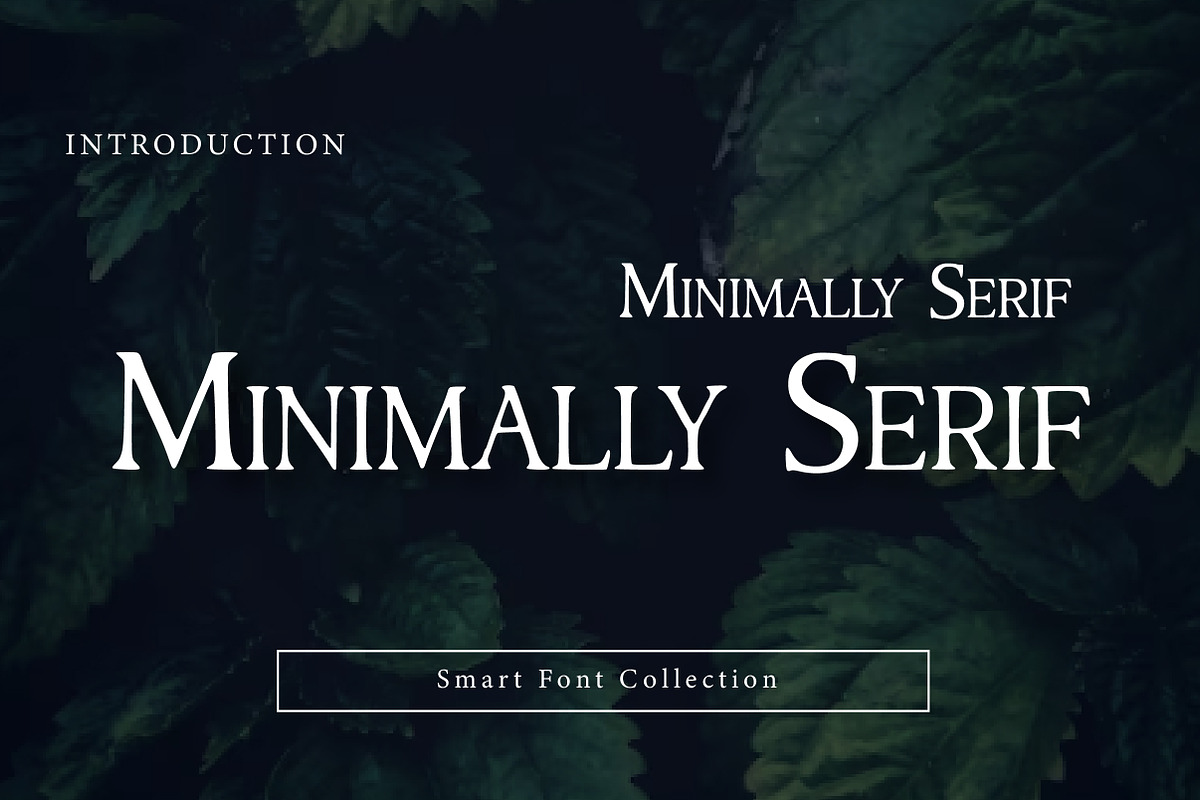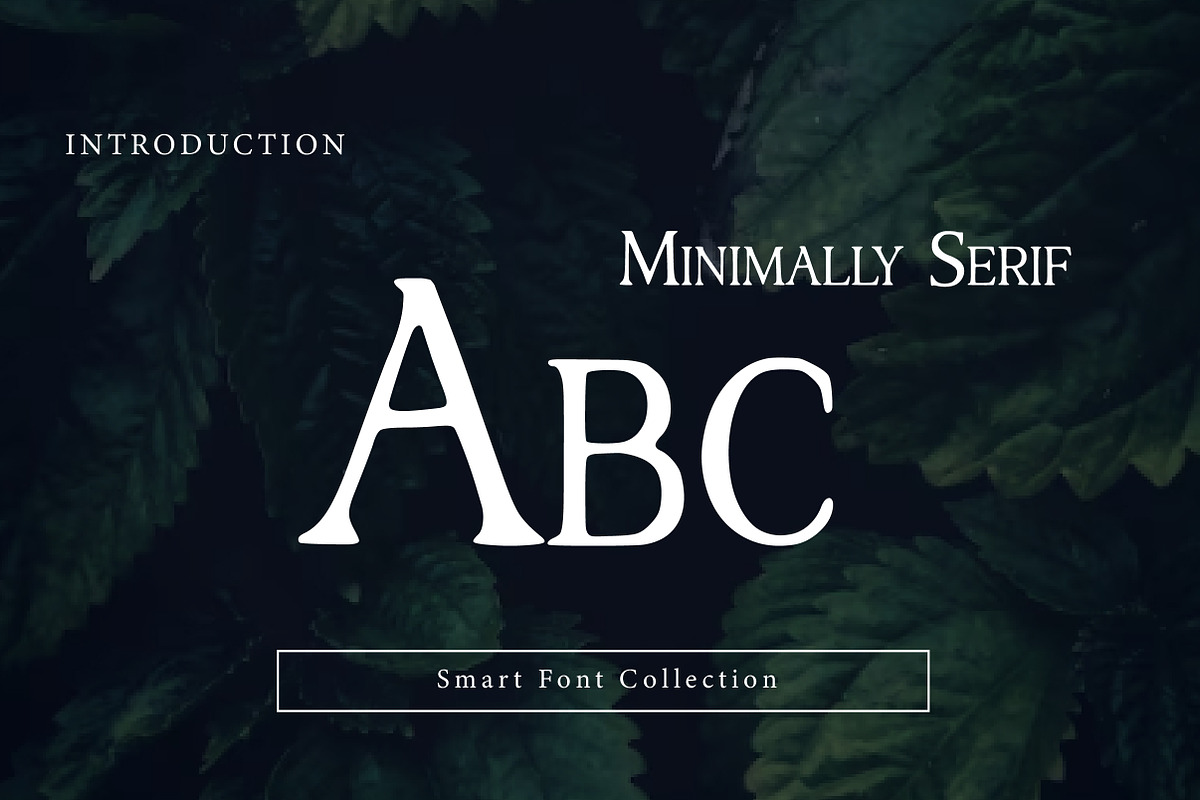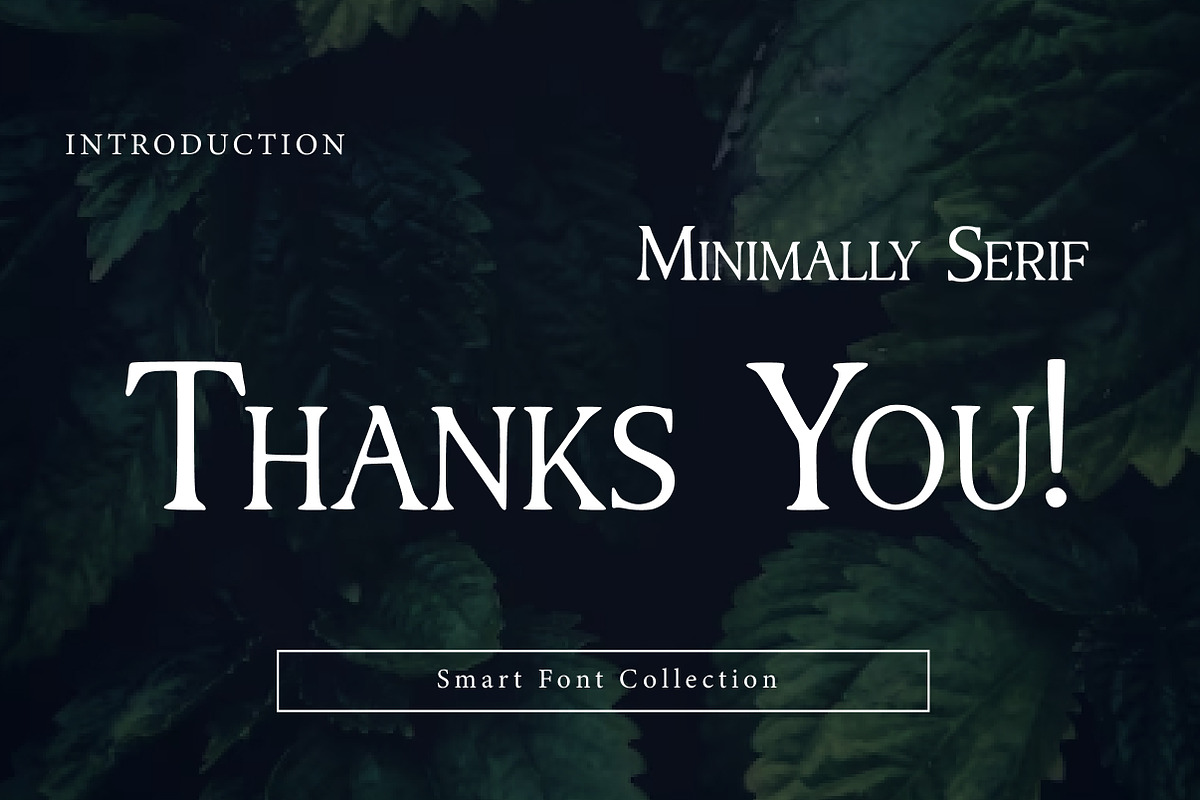
Minimally Serif
Minimally Serif is a clean, elegant, and modern serif typeface designed with simplicity and balance in mind. Inspired by minimal editorial aesthetics, this font combines subtle serif details with refined proportions to create a timeless and sophisticated look.
Perfect for modern branding, magazines, logos, editorial layouts, packaging, and high-end design projects, Minimally Serif offers excellent readability while maintaining a premium and minimalist character. Its understated elegance makes it ideal for designers who want a clean yet luxurious serif font without excessive ornamentation.
Minimally Serif works beautifully across both print and digital platforms, making it a versatile choice for contemporary and professional design needs.